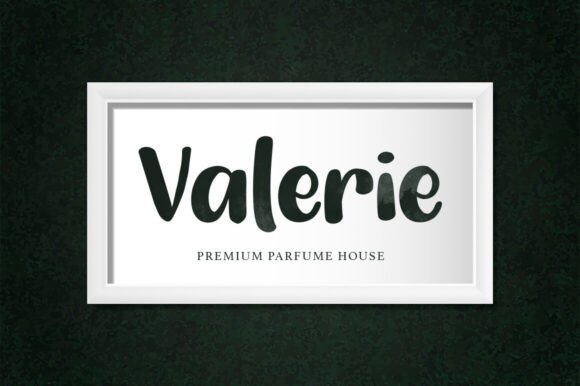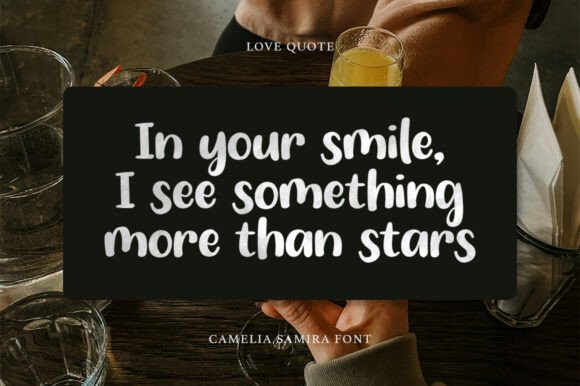
Camelia Samira Font
Camelia Samira is a bold handwritten font with a soft, rounded touch that brings warmth and charm to your design. Its natural curves and friendly flow make it ideal for logos, lifestyle branding, modern wedding designs, packaging, and Instagram quotes. It’s graceful yet fun — perfect for adding a personalized touch to any creative project.